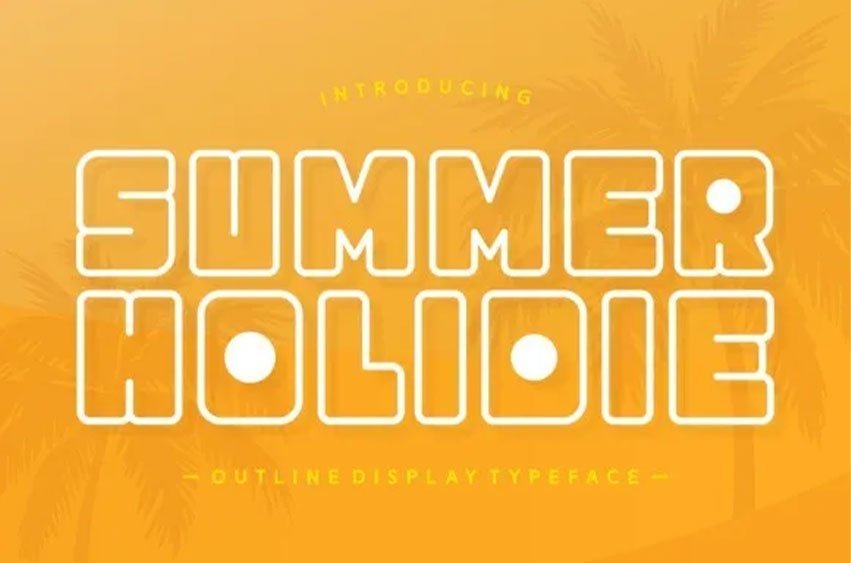
Summer Holidie Font is a fun and friendly display font that embodies the spirit of sunny vacations and carefree adventures. Its playful and rounded letterforms bring a sense of joy and relaxation to any design. Whether you’re creating summer-themed graphics, travel brochures, or event invitations, Summer Holidie is the perfect choice to evoke a cheerful and vibrant atmosphere.